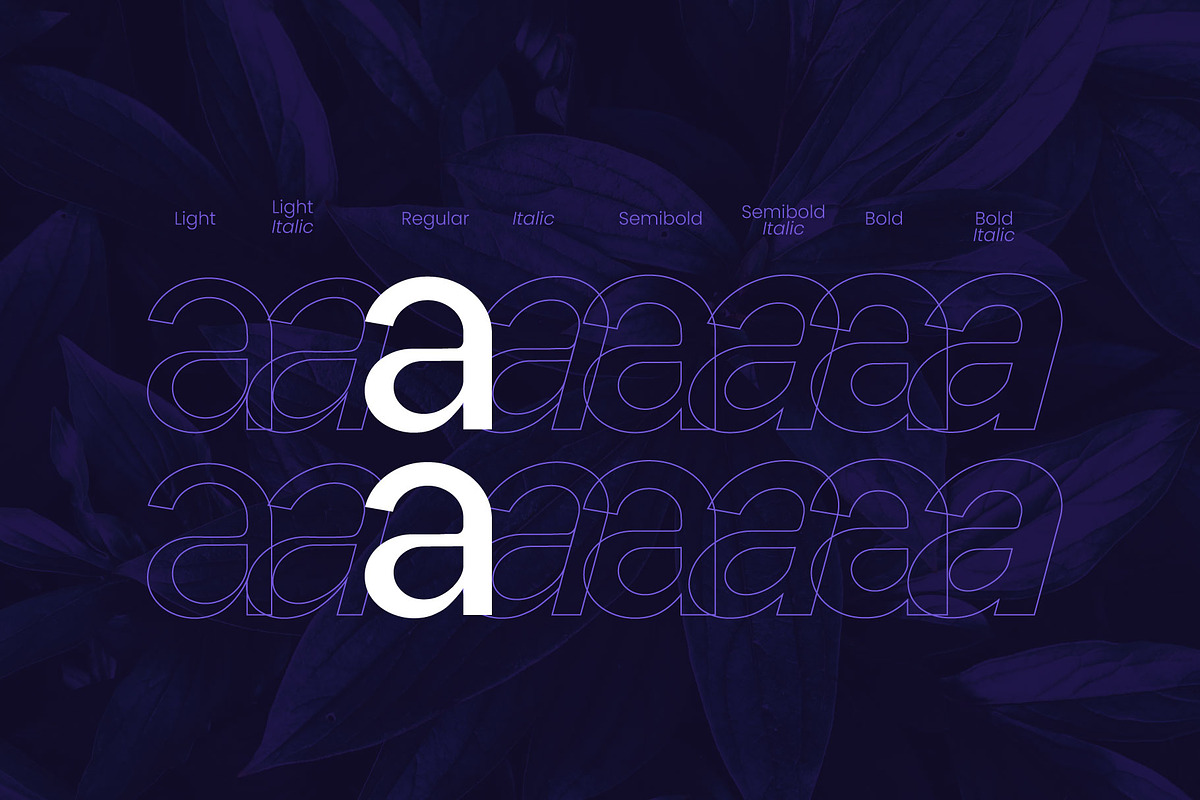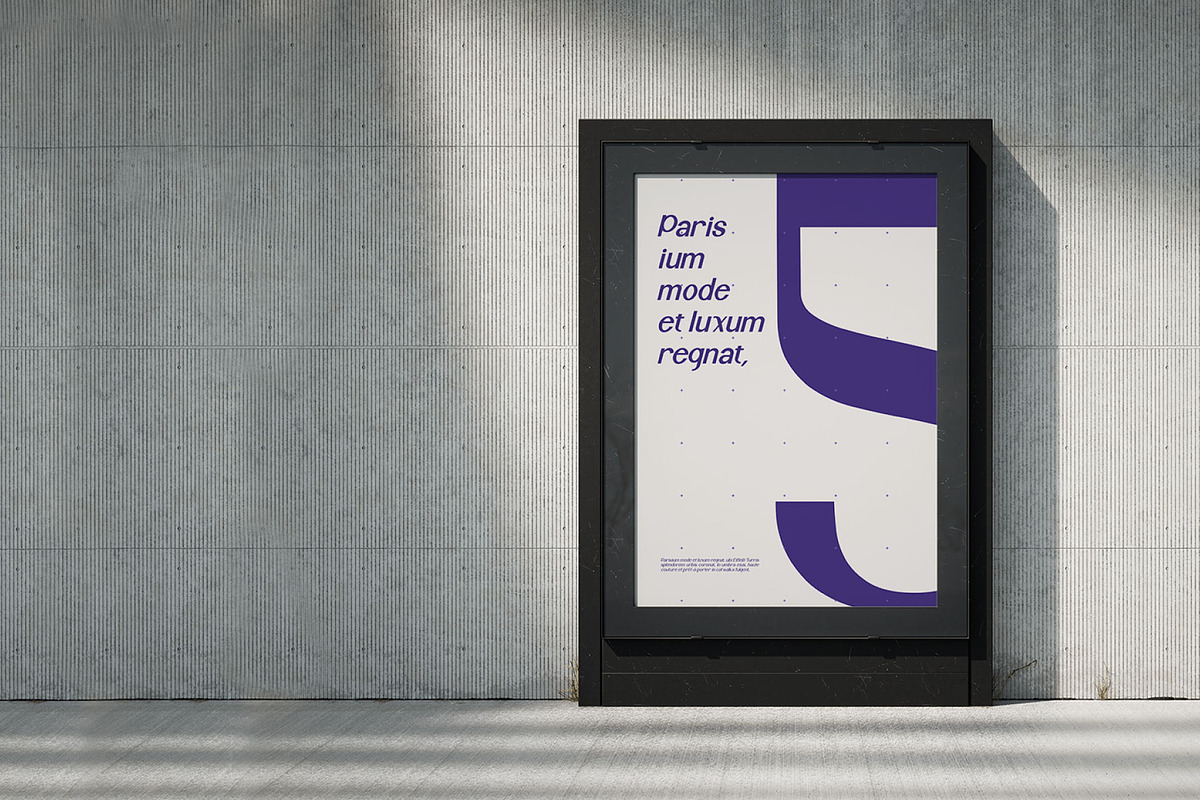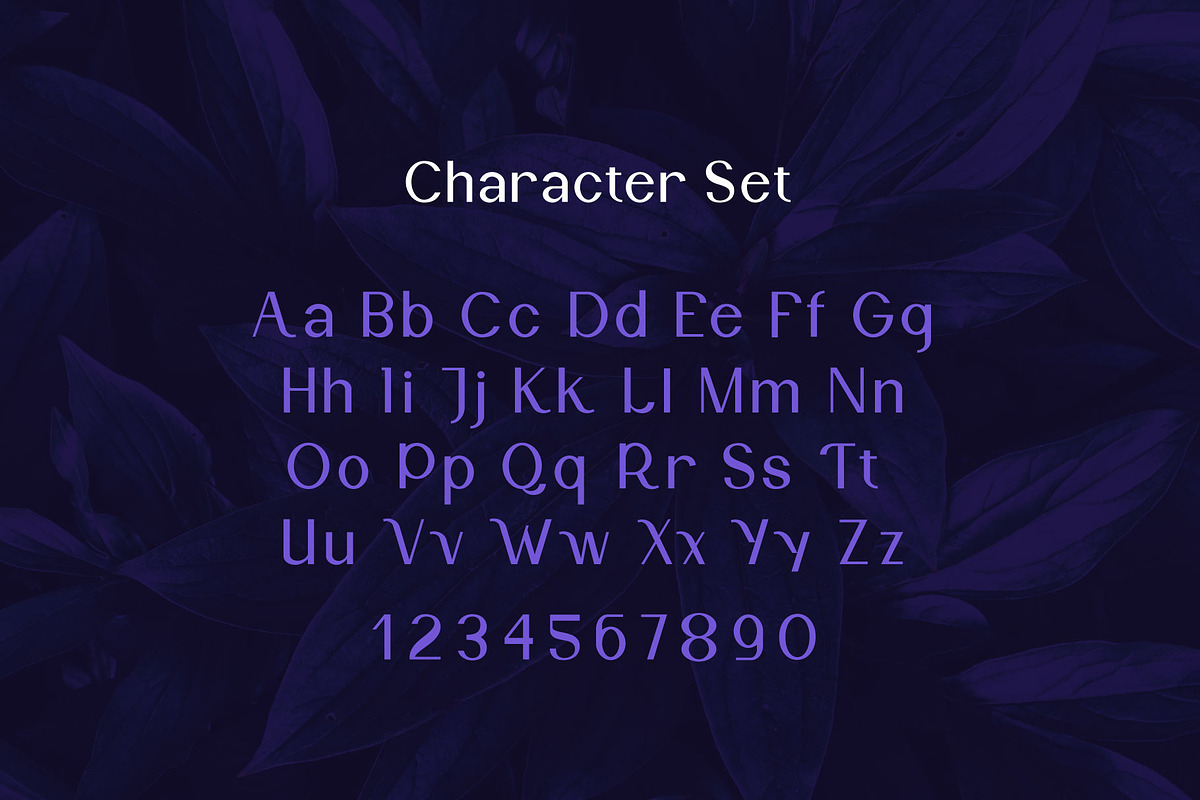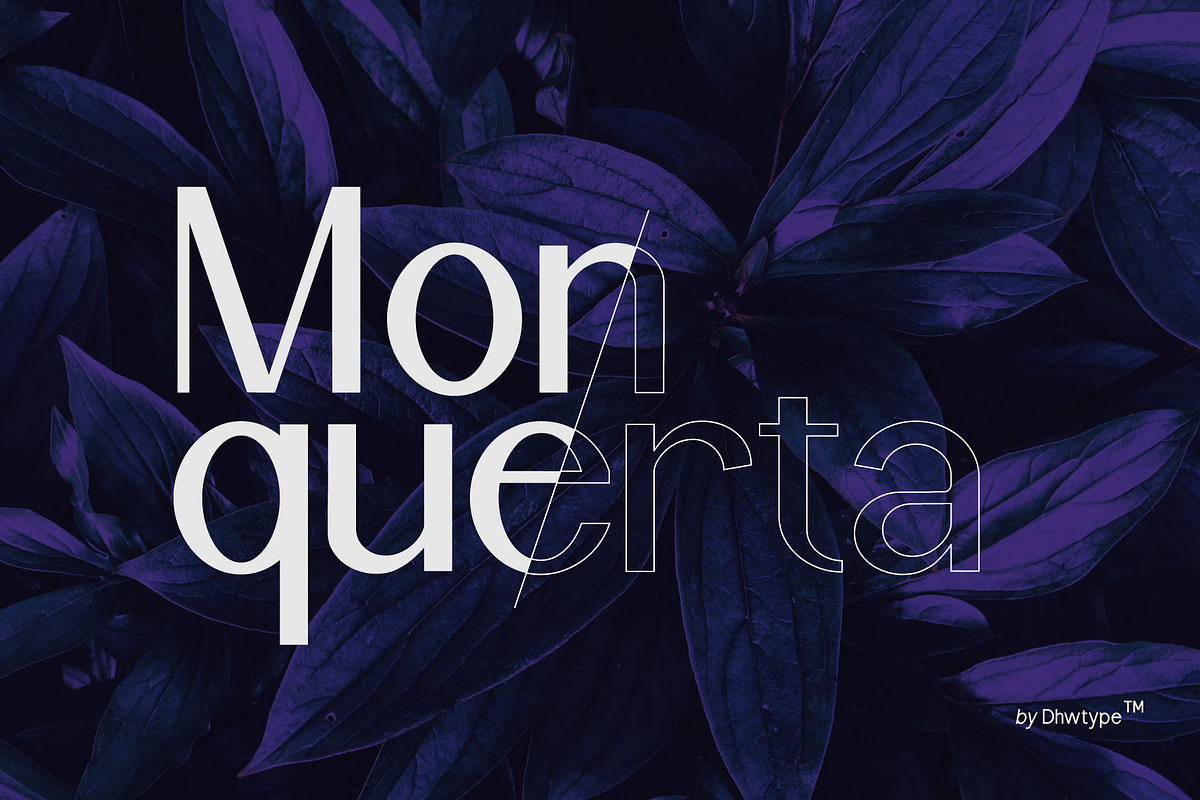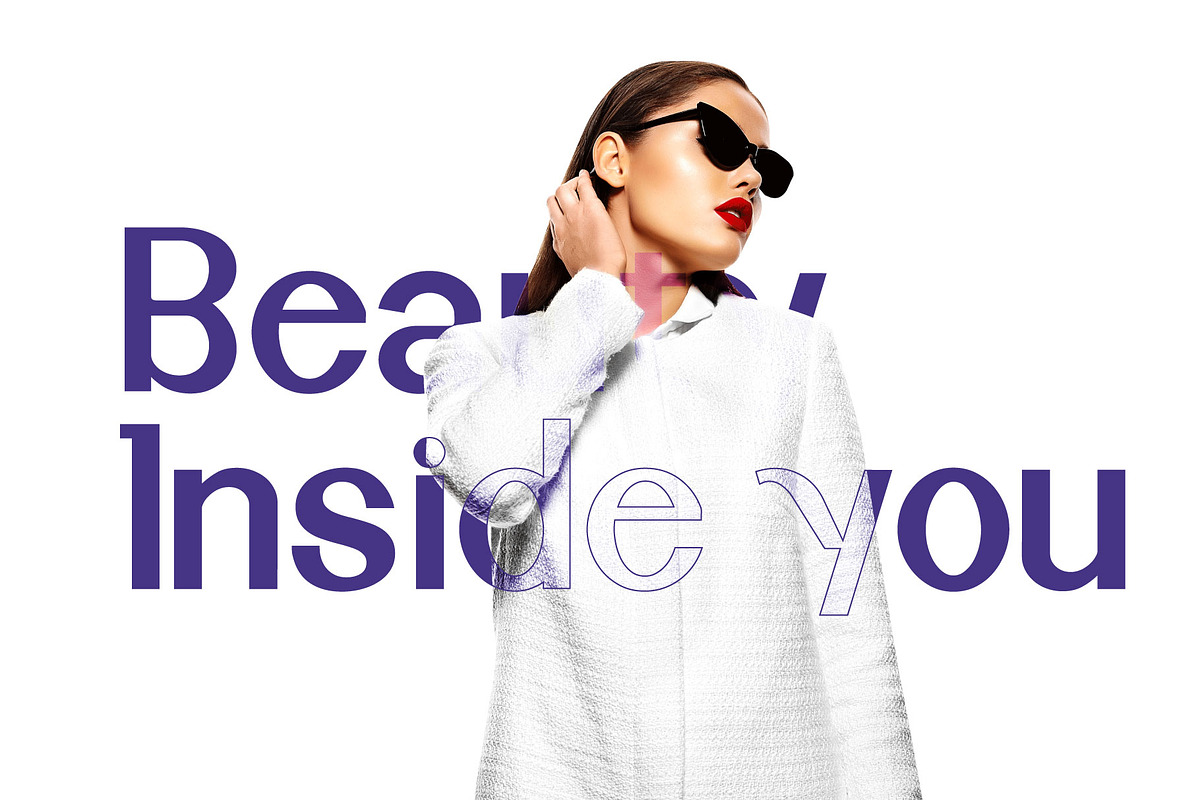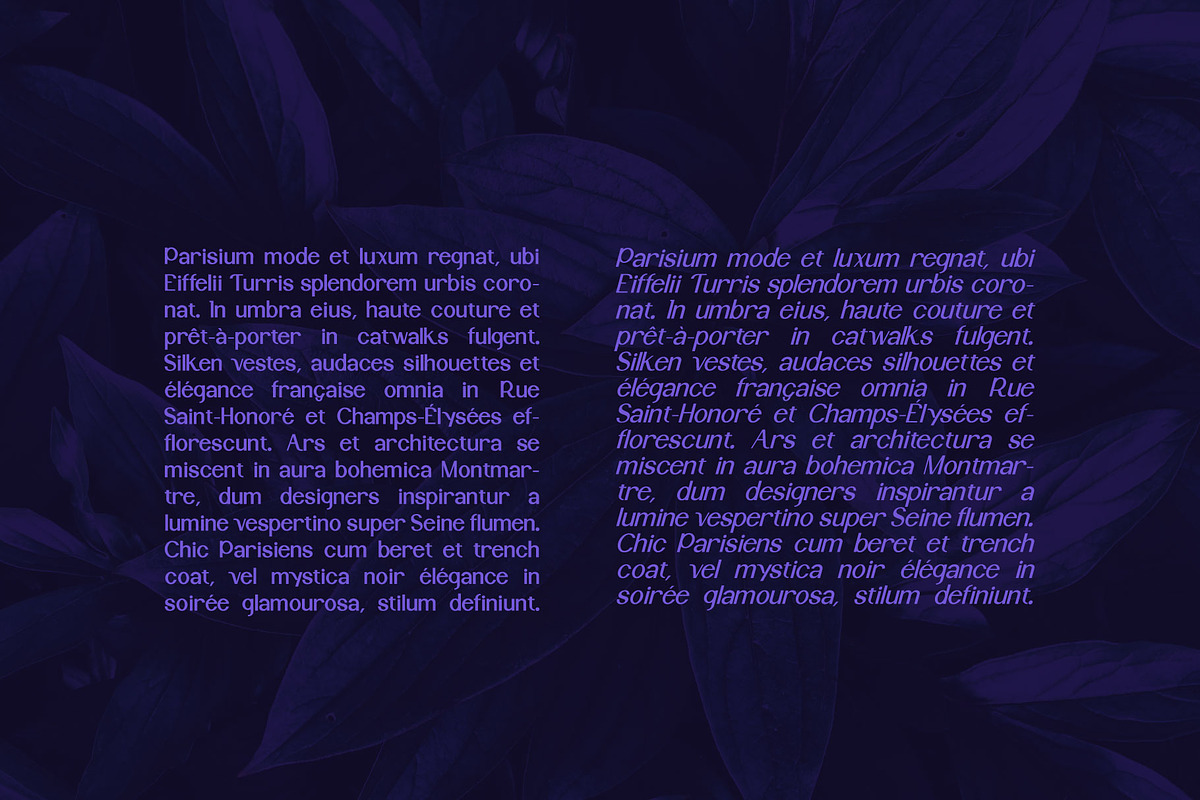
Monquerta
Monquerta is a sophisticated serif font family designed to bring a sense of elegance, professionalism, and versatility to your projects. Inspired by the balance between modern aesthetics and timeless serif traditions, Monquerta is perfect for luxury branding, editorial design, high-end fashion, and premium packaging.
This font family includes 8 styles, ensuring flexibility across different design needs:
-Light & Light Italic – Delicate and refined for subtle elegance.
-Regular – Perfectly balanced for everyday use.
-Semi Bold & Semi Bold Italic – A bit stronger for confident headlines.
-Bold & Bold Italic – Strong and striking for an impactful presence.
With its sharp yet graceful letterforms, Monquerta delivers classy and modern typography that enhances any design. Whether you're crafting a logo, magazine layout, website, or luxury product packaging, Monquerta provides the perfect balance of sophistication and functionality.
✔ 8 Font Styles (Light to Bold with Italics)
✔ Modern & Elegant Serif Design
✔ Versatile for Logos, Editorials, and Branding
✔ Full Character Set & Multilingual Support
✔ Perfect for High-End and Luxury Design